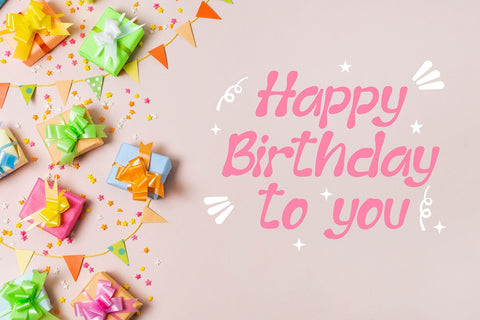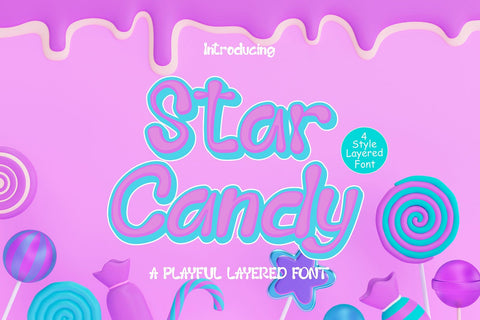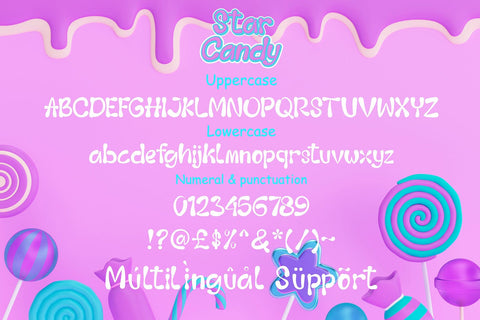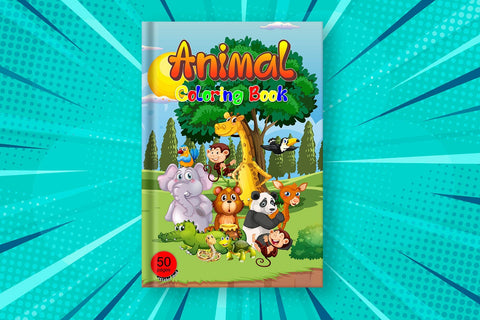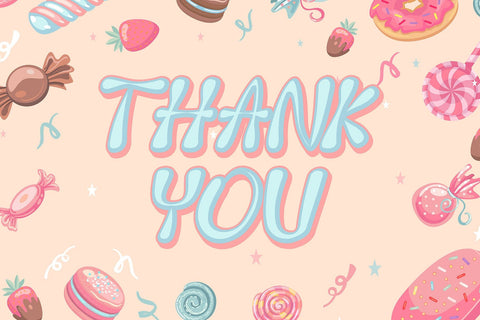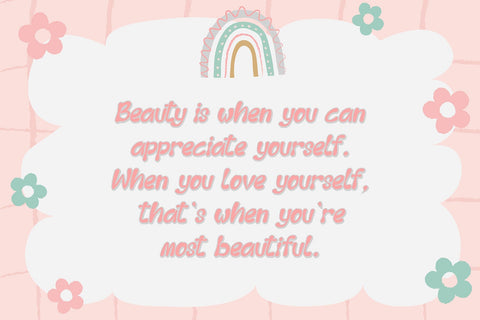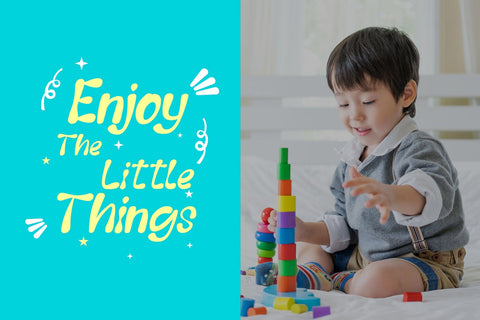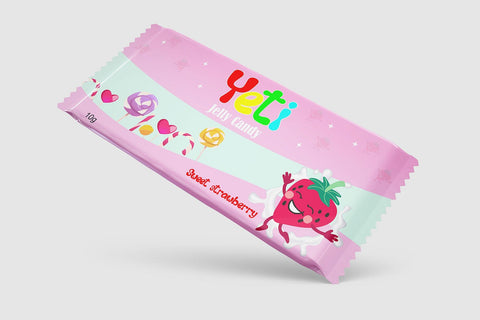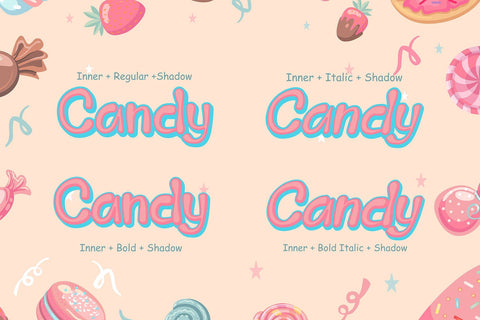
Star Candy - 3d Cute Thinny Display Font
"Star Candy" is a display font with cute and thin characters. Fonts like this are often used in designs that aim to convey a charming and adorable feel. The thin and cute letterforms give a cheerful and enchanting appearance, making it suitable for a variety of design projects that want to emphasize a sense of cuteness, such as children's designs, greeting cards, decorations, or products that want to attract attention with their adorable appeal. If you have further questions about using this font or need assistance in a specific design context, please feel free to ask!
- Graffiti Characters looks